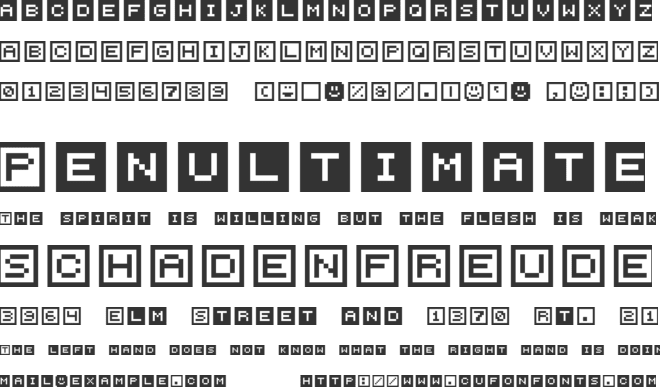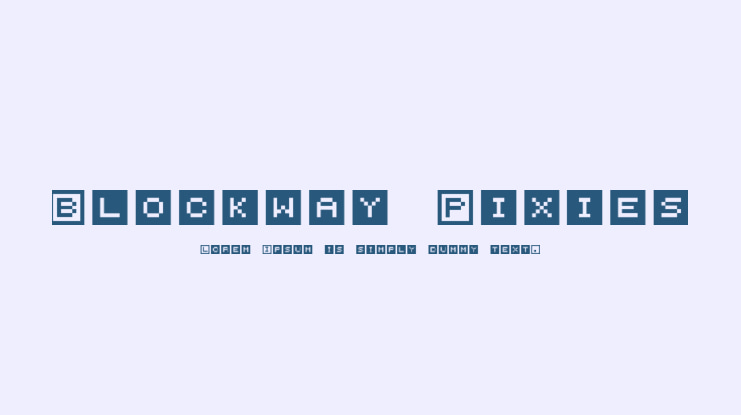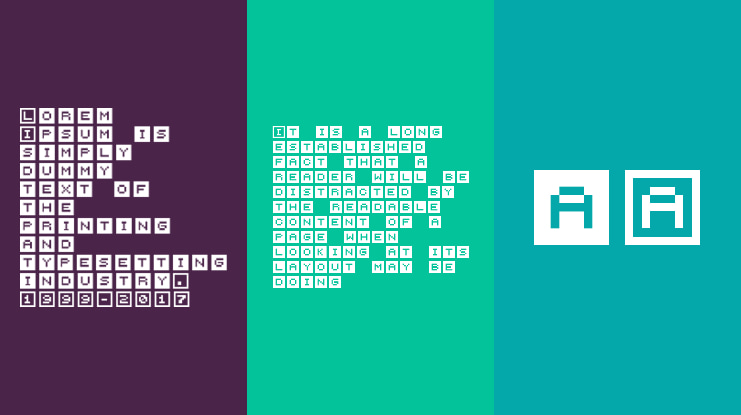
Blockway Pixies Font
This is the pixelated version our previous release Blockway, made of ⑨x⑨ grid.
The only difference that this font is monospaced, so it is best use at 9 pixels! :)